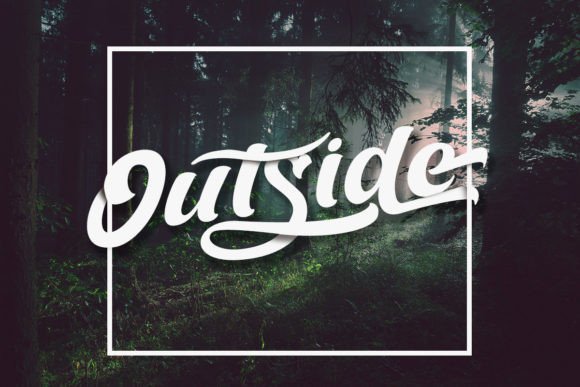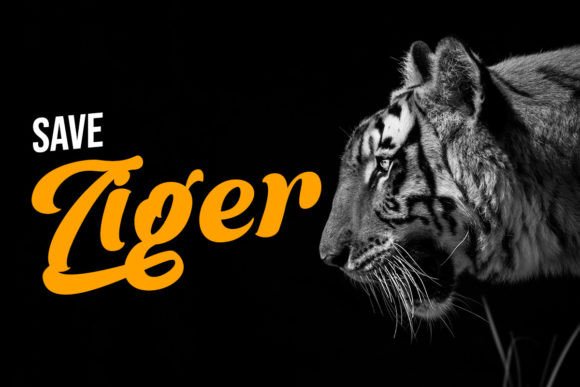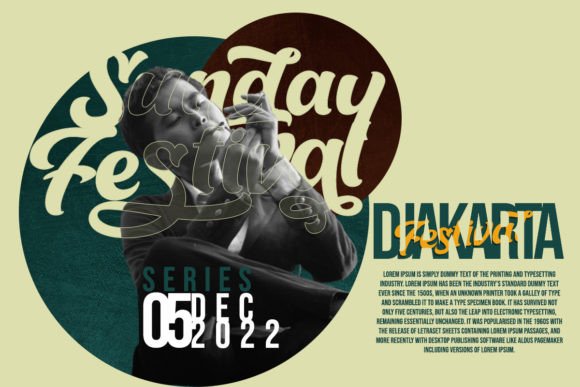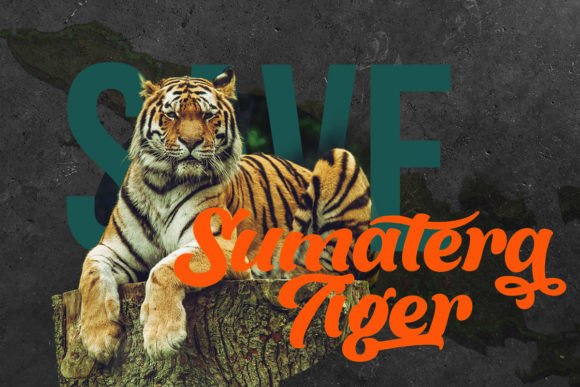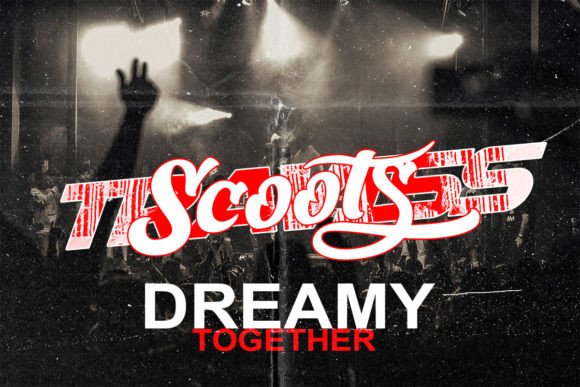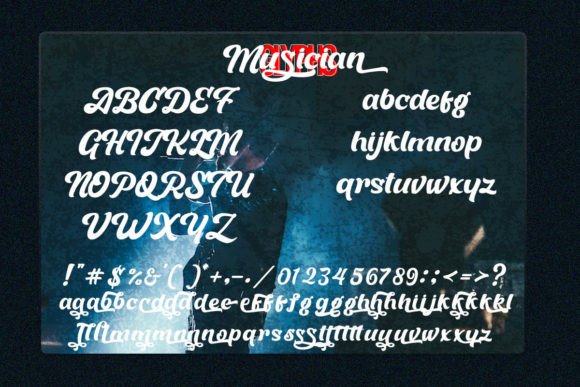
Introduction to Musician Font
Musician is a carefully crafted hand-written font.
| 📌 Product Name | Musician Font |
| 👤 Author | Lettercorner Studio |
It looks original and can be used for each of your projects with certain concepts Impatiently looking forward to Musician giving touch and perfecting your design projects such as wedding invitations, social media posts, promotional material, quotes, flyers, packaging, or logos for branding and others.
Key Features of Musician Font
Why Choose Musician Font?
Musician Font offers exceptional quality and versatility, making it a valuable addition to your design toolkit. Whether you’re creating for personal projects or commercial use, Musician Font delivers professional results.